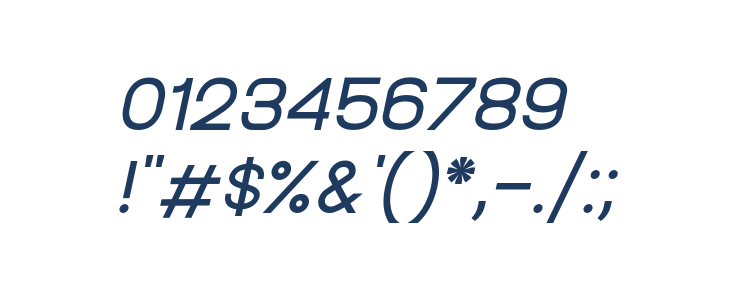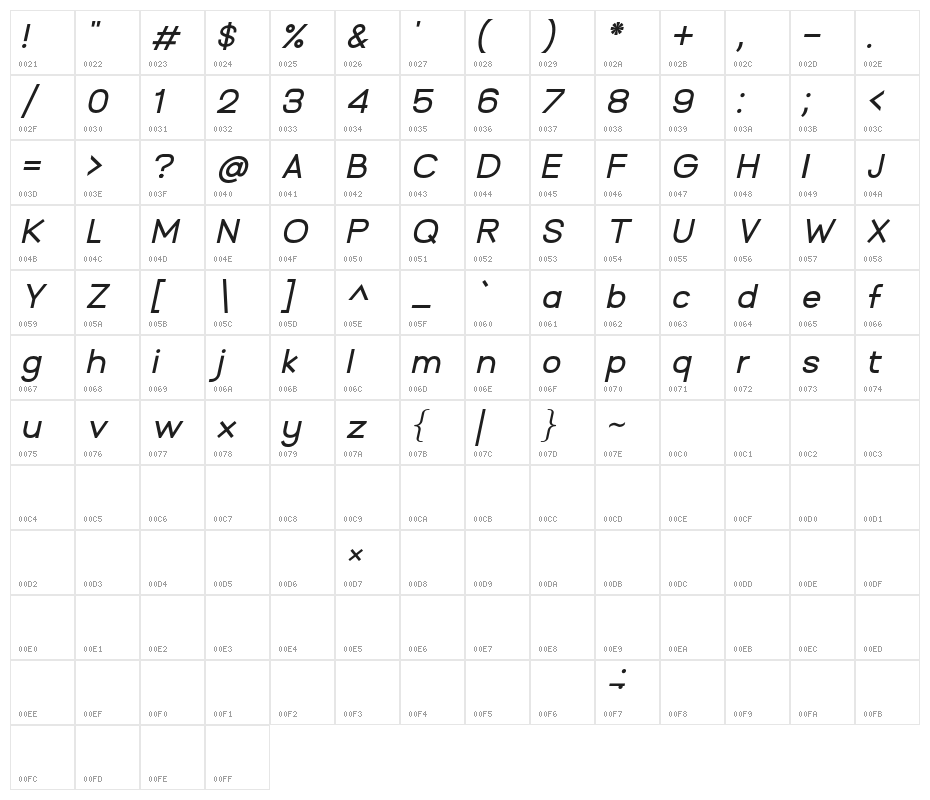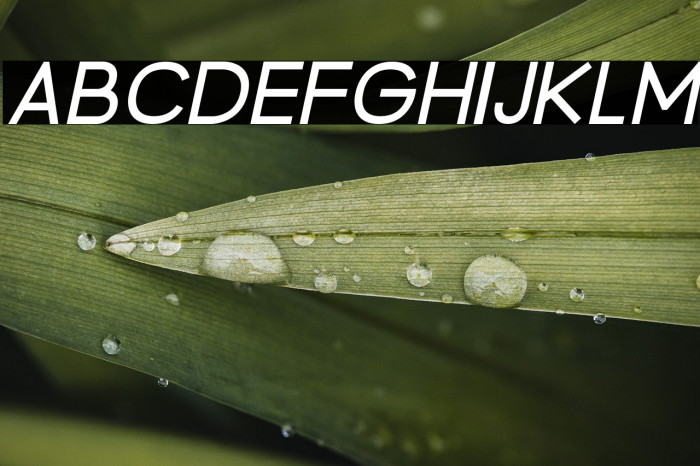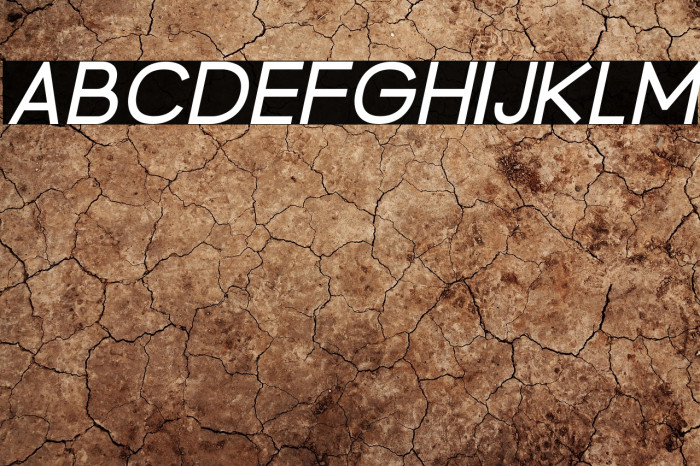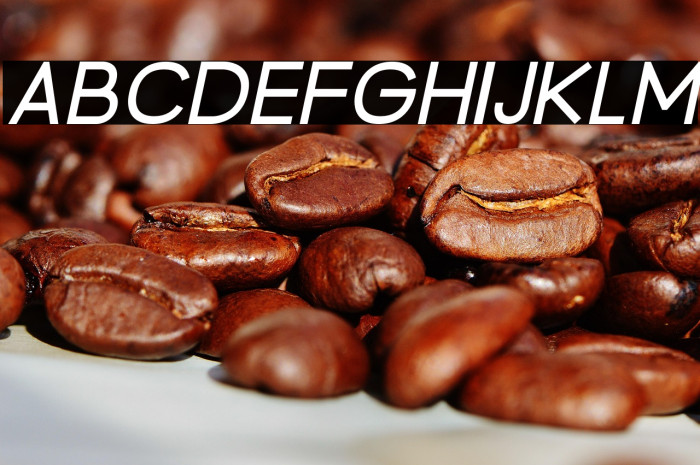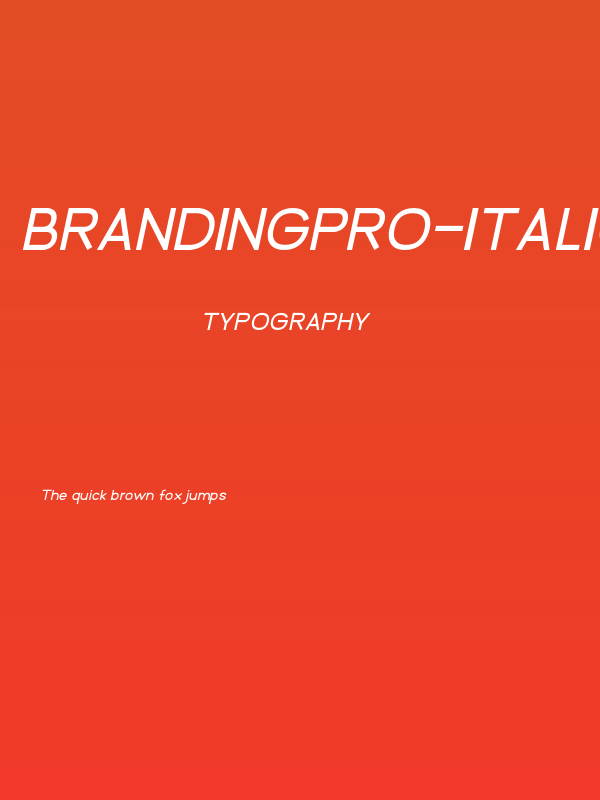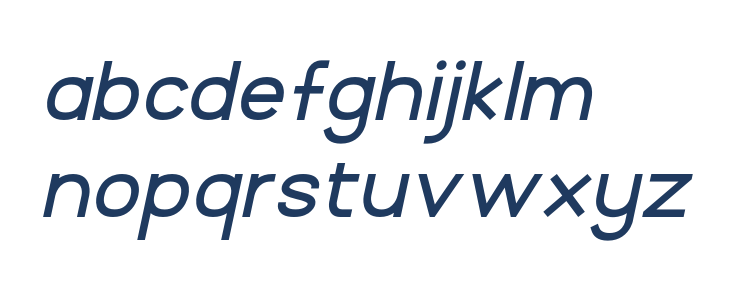
BrandingPro-Italic Font
BrandingPro-Italic Description
This font features a sleek and modern design with a slight italic slant, giving it a dynamic and forward-moving appearance. The characters are clean and sans-serif, providing a contemporary look that is both professional and approachable. The strokes are consistent in thickness, offering a medium contrast that enhances readability while maintaining a stylish aesthetic. The spacing between characters is normal, ensuring clarity and legibility across various applications. This font is versatile, suitable for both digital and print media, and can be used effectively in branding, advertising, and editorial design.
| Proposed Projects | Ideal for branding, advertising, editorial design, and digital media. |